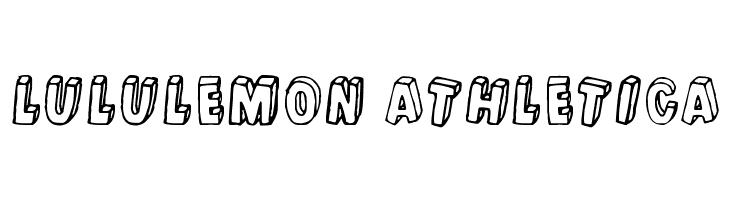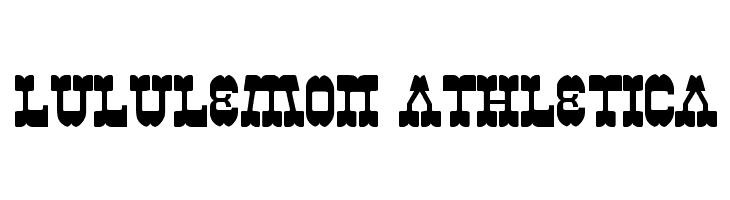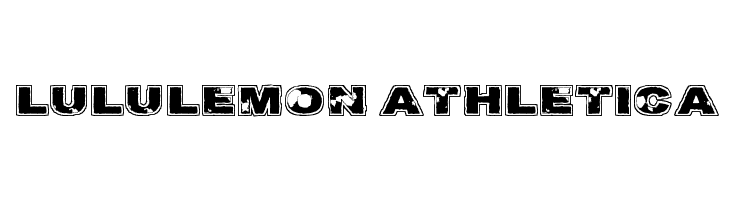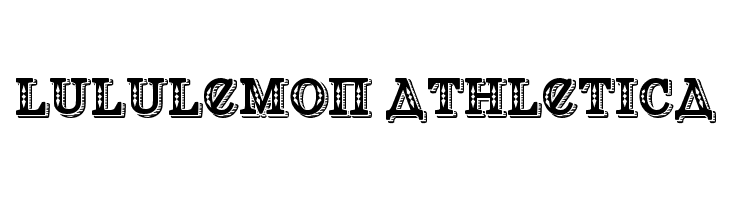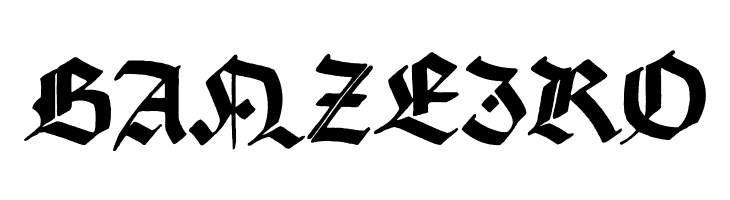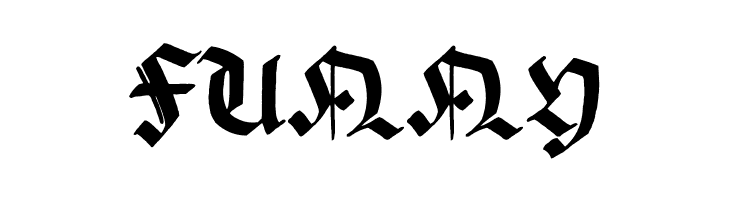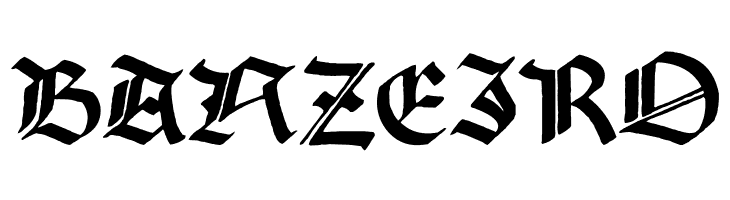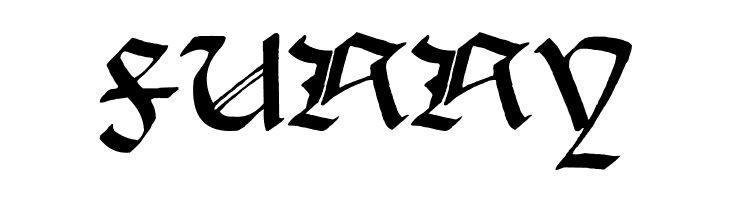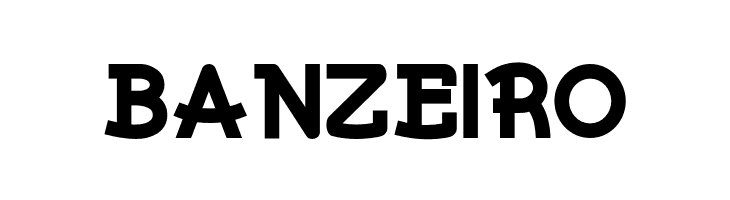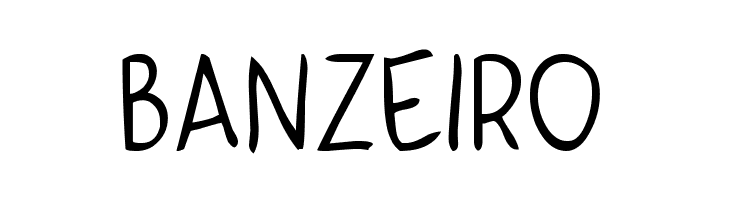
A modern, geometric sans-serif font with clean lines and balanced proportions.
A modern, italic font with clean lines and excellent readability.
A bold, Gothic-style font with intricate, angular characters and a medieval flair.
A bold, traditional blackletter font with high contrast and intricate details.
A bold, geometric font with strong, uniform strokes and a modern appeal.
A decorative script font with elegant, flowing letterforms and intricate flourishes.
A bold, playful font with thick, rounded strokes and a modern aesthetic.
A playful font with stick figures surfing on each letter.
A bold, decorative font with intricate patterns and a three-dimensional effect.
A bold, geometric font with a strong, traditional Slavic influence.
A bold, geometric font with strong, stylized characters and a cultural flair.
A bold, distressed font with a rugged, vintage appearance.
A bold, playful, and three-dimensional hand-drawn font with a cartoonish style.
A bold, playful font with curvy and sharp elements, perfect for creative projects.
A bold, distressed font with a vintage, rugged appearance.
A bold, distressed font with a vintage, rugged style.
A bold, futuristic font with geometric and digital-inspired elements.
A geometric, monospaced font with rounded edges and consistent line thickness.
An elegant and artistic script font with flowing, intricate letterforms.
A sleek, modern font with thin, geometric lines and a minimalistic design.
A modern, minimalist font with thin, clean lines and a geometric influence.
A modern, geometric font with clean lines and a minimalist style.
A modern, geometric font with clean, rounded edges and consistent stroke width.
A modern, geometric font with clean lines and a structured appearance.
A bold, geometric font with a modern and clean design.
A bold, italicized font with a modern, angular design.
A sleek, modern italic font with a geometric structure and dynamic style.